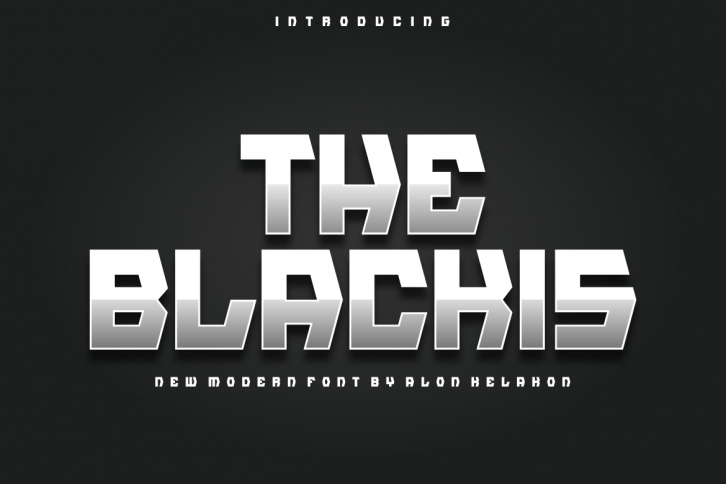
The Blackis is a cool and modern display font. Masterfully designed to become a true favorite, this font has the potential to bring each of your creative ideas to the highest level!